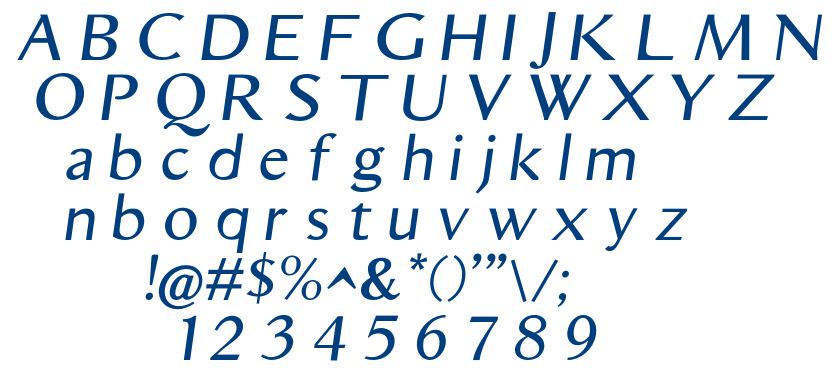
I noticed that many typefaces used for Royal families, Presidential advertisements, and fancy events used serif typefaces. Aristocrat will revolutionize that idea by creating a high-end typeface that can be used for Royal families, presidential campaigns and a variety of other occasions.